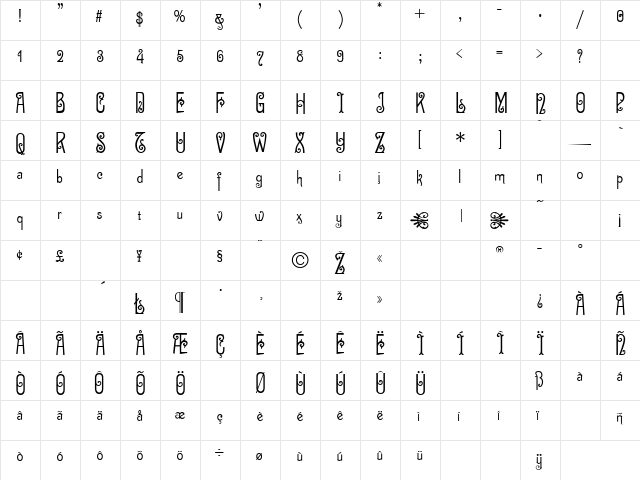
Zinco Regular
Design Context for Zinco Typeface
Zinco is a composed and adaptable typeface that performs quietly and consistently across a wide range of design contexts.
Pro Tip: Pair Zinco with a font of contrasting weight or personality to build a more expressive typographic hierarchy.